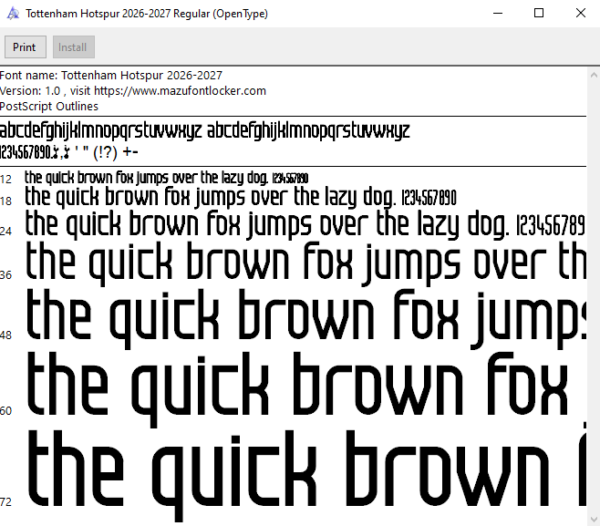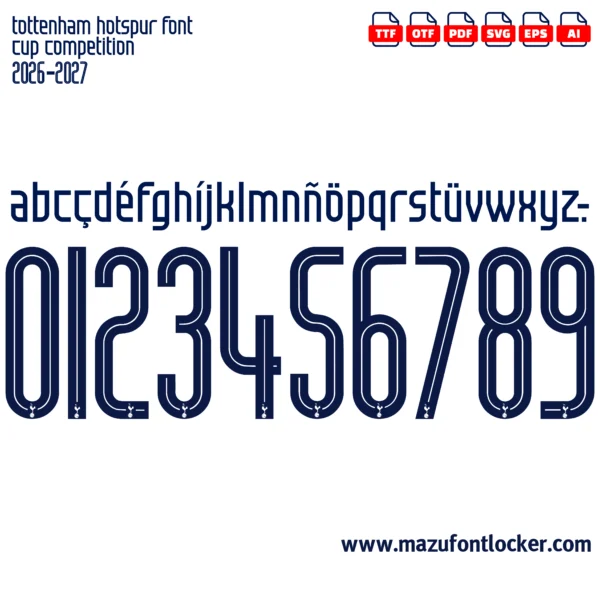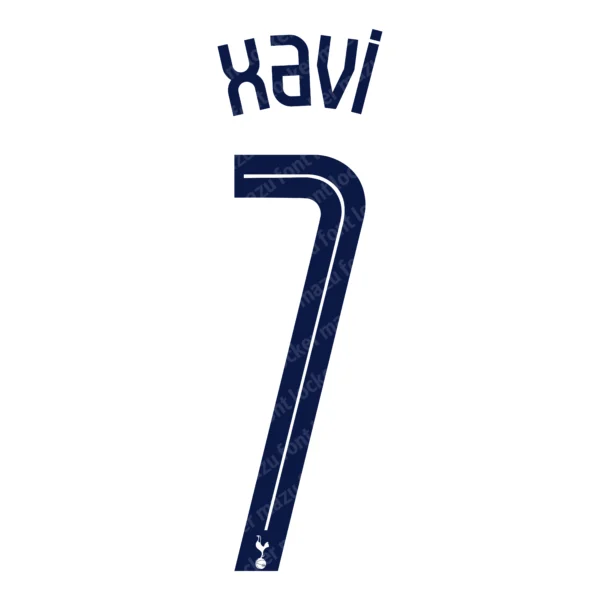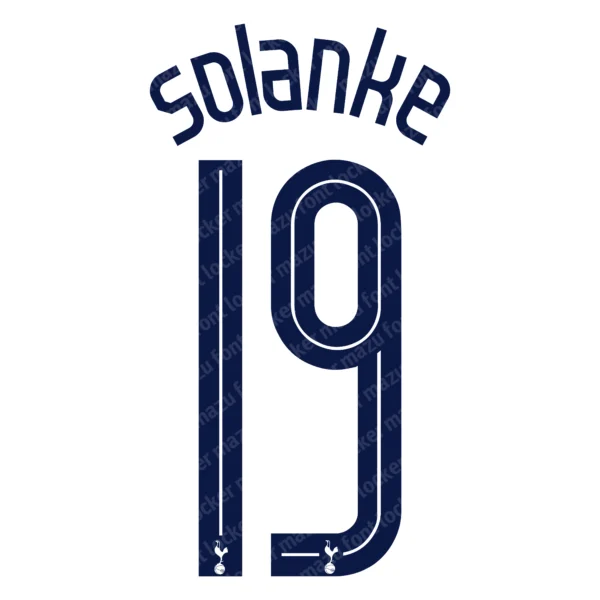
Tottenham Hotspur 2026-2027 Font Vector – Magnificent Lilywhites Masterpiece
This premium font captures the bold, modern, and fiercely competitive typography that defines the proud Spurs identity — delivering unmatched North London passion, attacking ambition, relentless determination, fearless football, and the soaring cockerel spirit that inspires generations of Tottenham supporters. Every character reflects the club’s pursuit of glory, combining elegance, strength, and warrior-like resilience into a championship-worthy design built for true Lilywhites fans.
Tottenham Hotspur 2026-2027 Font Vector – Powerful Lilywhites Match Typeface
The Tottenham Hotspur 2026-2027 Font Vector is a premium typeface that accurately recreates the official match lettering worn by Tottenham Hotspur during the 2026-2027 season. This high-quality vector font kit captures the sleek, modern, and dynamic typography that represents the ambition, tradition, and attacking football philosophy of the North London club.
Designed for professional designers, football enthusiasts, and Spurs supporters, the Tottenham Hotspur 2026-2027 Font Vector delivers authentic results for creating realistic jersey mockups, fan merchandise, football graphics, social media content, and matchday designs. It perfectly complements the iconic white home kit and modern visual identity of the Lilywhites.
This font stands out because of its authentic recreation of the official shirt lettering used by Tottenham Hotspur during the 2026-2027 campaign. Every character has been carefully crafted to match the exact style seen on player kits, ensuring professional-quality results for both digital and print projects. Whether you are producing realistic jersey concepts or football-themed artwork, the Tottenham Hotspur 2026-2027 Font Vector delivers true Spurs authenticity.
The letterforms feature sharp lines, balanced proportions, and a clean contemporary appearance. Inspired by the club’s modern branding, the typography offers excellent readability while maintaining a premium and athletic aesthetic suitable for elite football competition.
The numerals feature bold construction with distinctive detailing that reflects the official squad numbering style used throughout the 2026-2027 season. The vector format ensures flawless scaling for everything from jersey customization to large-format print designs.
• Complete uppercase A–Z and numbers 0–9 in authentic Tottenham Hotspur 2026-2027 style
• Special Tottenham Hotspur crest glyph – Press the “:” (Colon mark) symbol to insert the crest
• Includes accurate crest glyph placement for realistic shirt customization